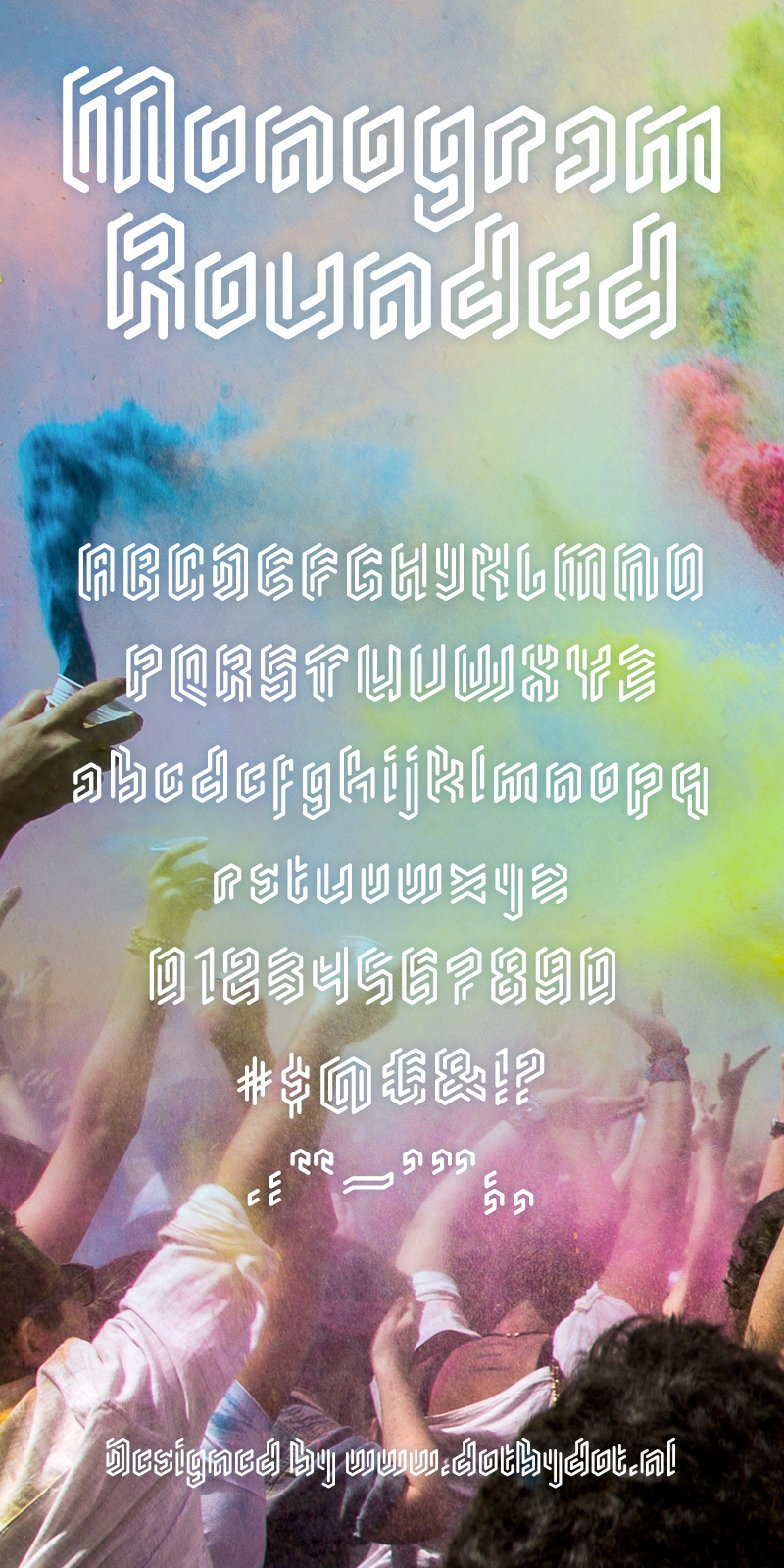
Monogram Rounded, a captivating display font crafted by Sjoerd Kulsdom of Studio Dot by dot, exudes a bold and futuristic aesthetic. With its distinctive rounded corners and sharp, angular edges, this techno-inspired typeface emanates a sense of contemporary sophistication and digital elegance.
The font's robust, oversized letterforms command attention, lending themselves seamlessly to impactful headings, branding elements, and eye-catching signage. Monogram Rounded's versatility extends across diverse design applications, from sleek product packaging to dynamic web interfaces, allowing designers to infuse their work with a striking, technologically-inspired flair.
Sjoerd Kulsdom
Monogram Rounded